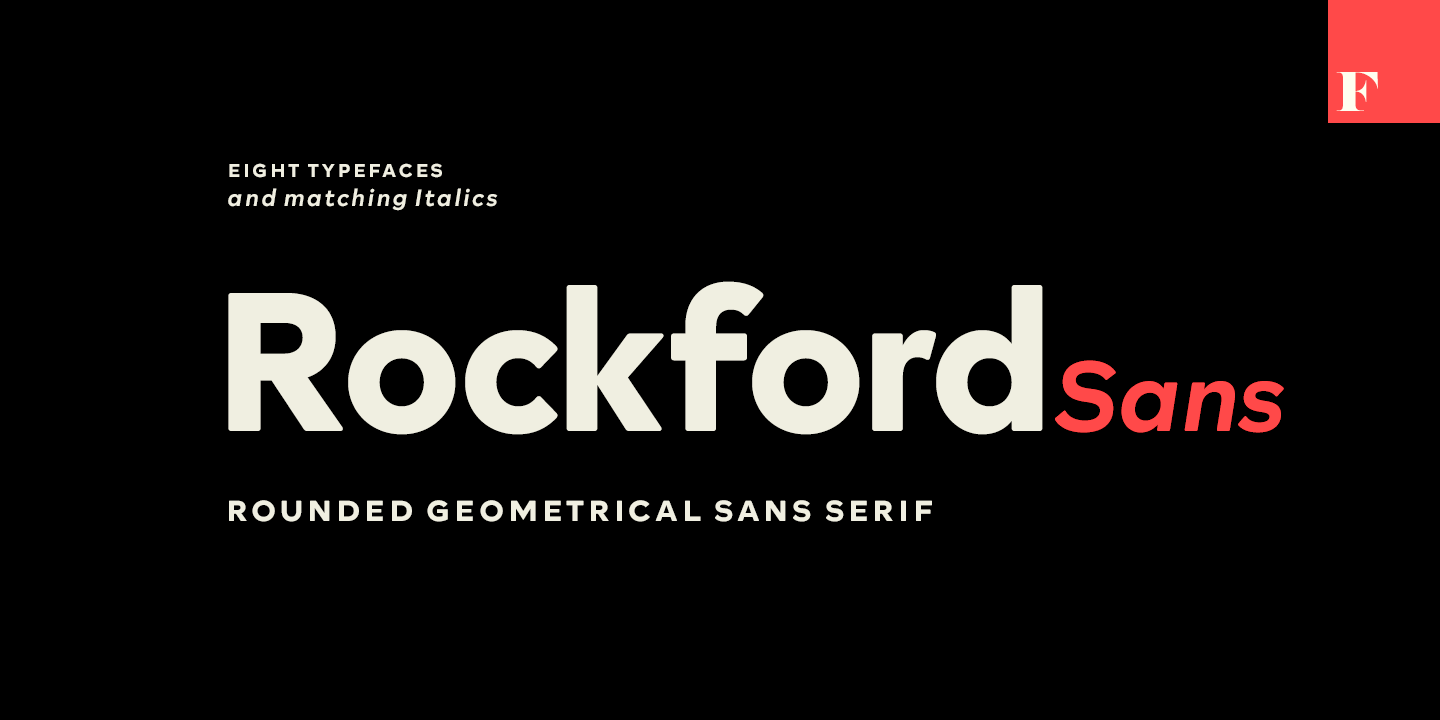
Rockford Sans Font Free Download is a clean, modern sans-serif typeface with a strong geometric structure. Its minimalist design and balanced proportions make it highly versatile, perfect for both body text and bold headlines. Whether you're working on branding, web design, or editorial projects, Rockford Sans brings clarity and sophistication to any design.
The font's simple yet powerful letterforms give it an approachable, contemporary feel, while its excellent readability ensures it performs well in both print and digital media. With multiple weights available, you have the flexibility to use it in various contexts, from elegant websites to corporate branding and beyond.